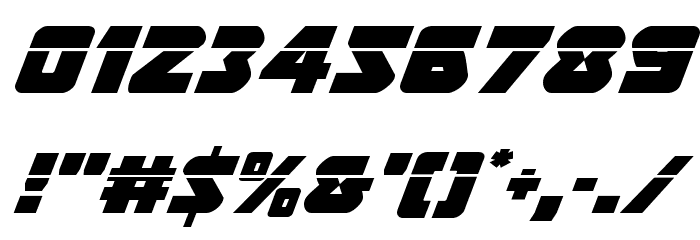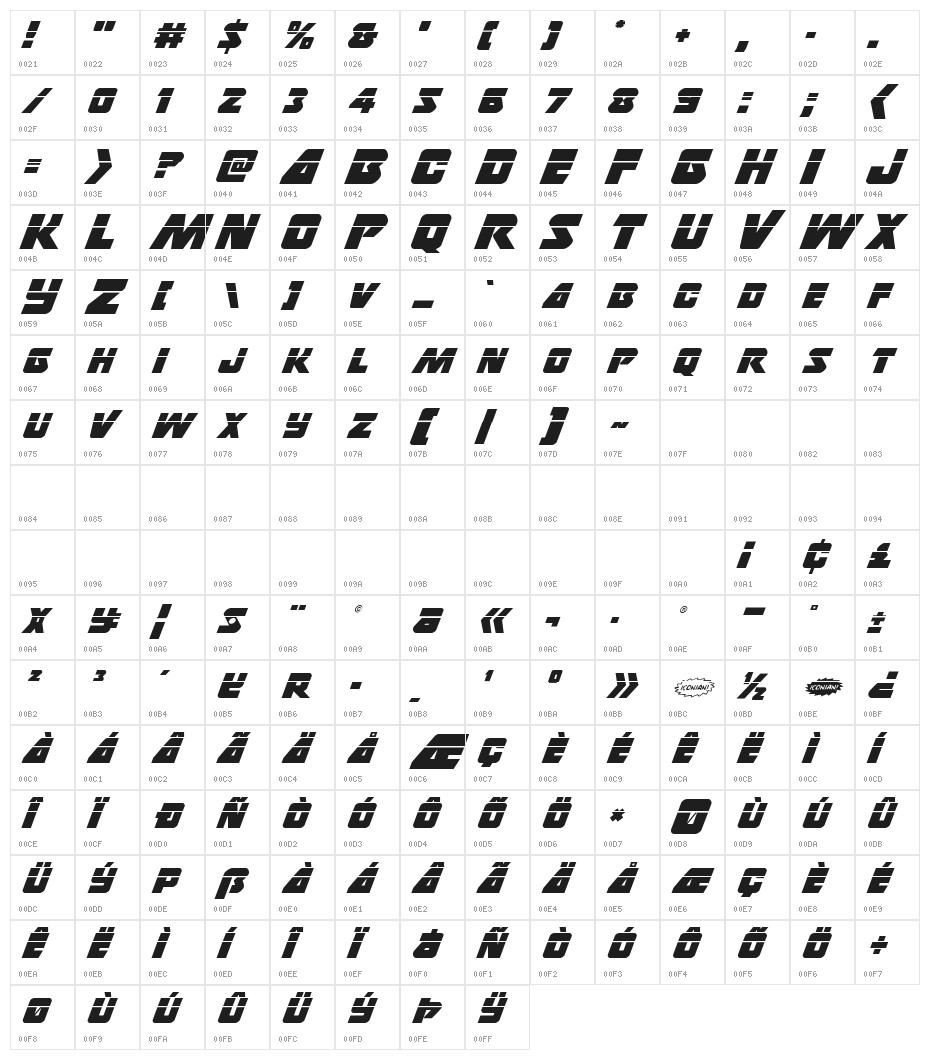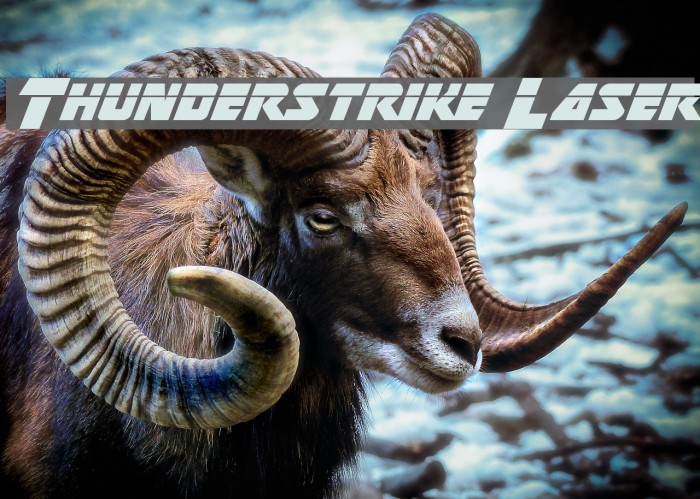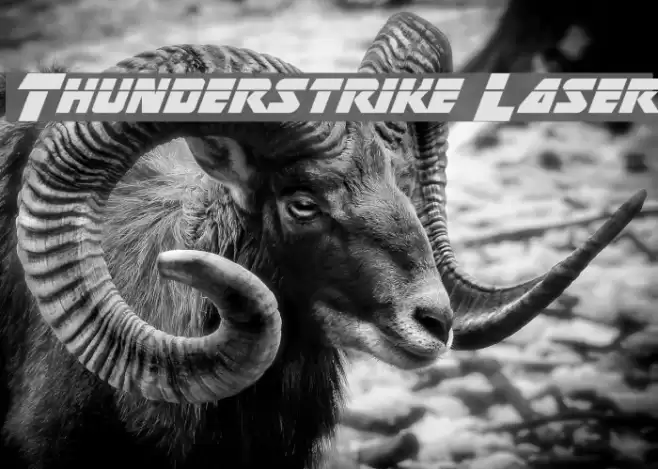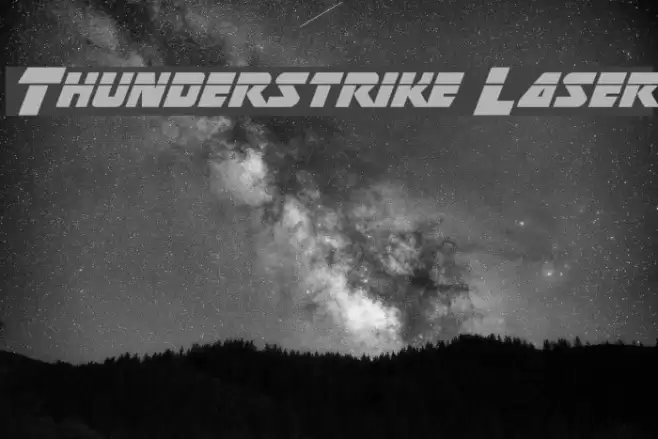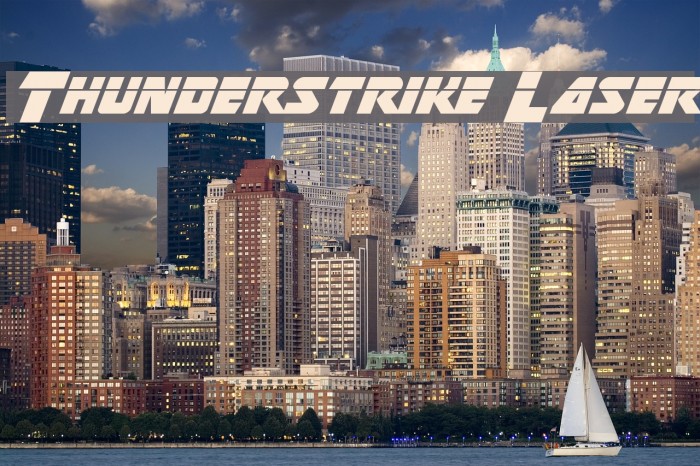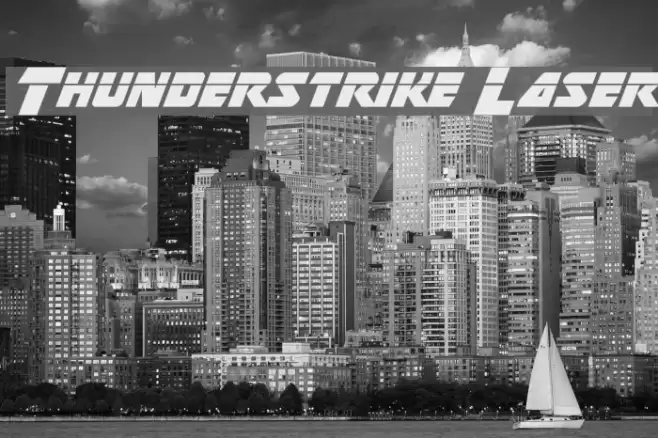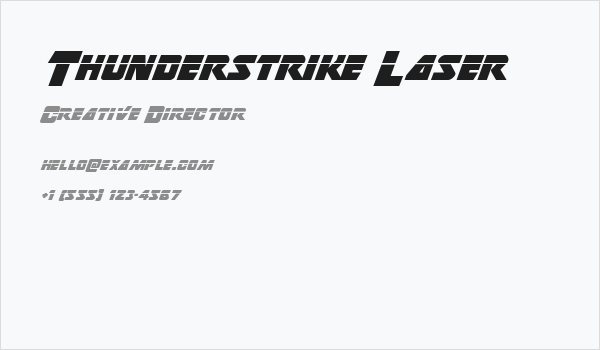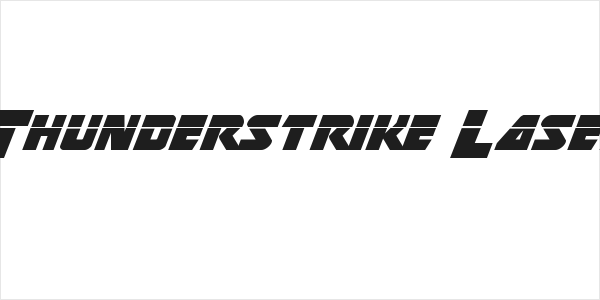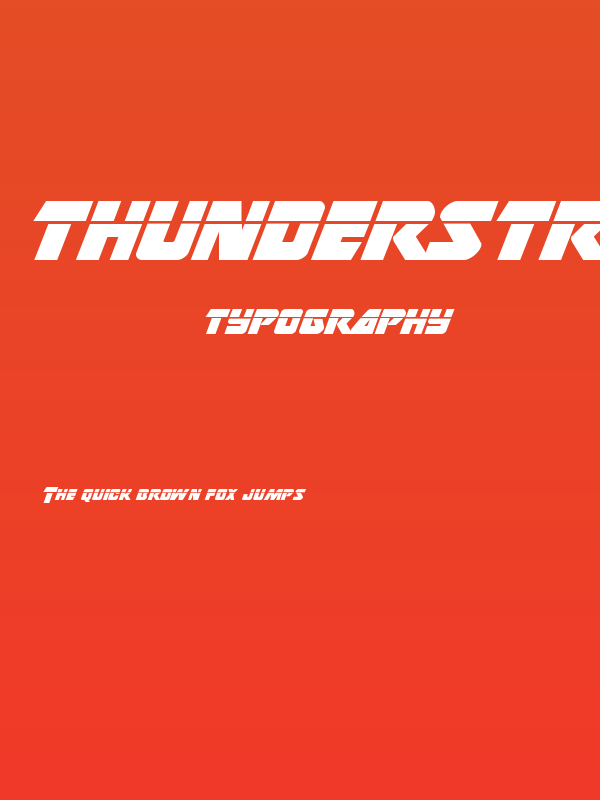
Thunderstrike Laser Font
Thunderstrike Laser Description
This font features a bold and dynamic design with sharp, angular edges and a futuristic aesthetic. The characters are heavily stylized, with a slanted orientation that suggests movement and speed. The uppercase letters are particularly striking, with a blocky, geometric form that commands attention. The lowercase letters maintain the same angular style, ensuring consistency across the typeface. Numbers and special characters are equally bold and distinctive, making them suitable for impactful displays. The overall design is reminiscent of science fiction and high-tech themes, making it ideal for projects that require a modern and edgy look.
| Overall Style | Futuristic, Modern |
| Proposed Projects | Ideal for sci-fi themed posters, video game titles, tech branding, and futuristic event flyers. |